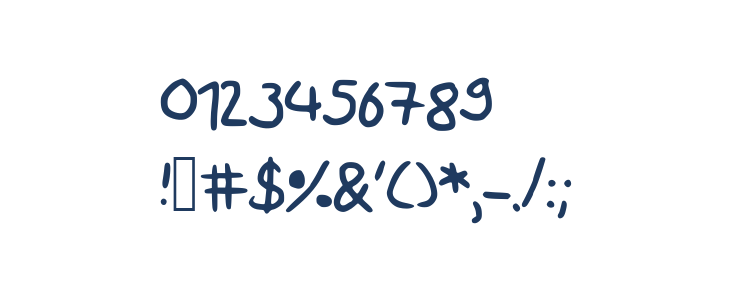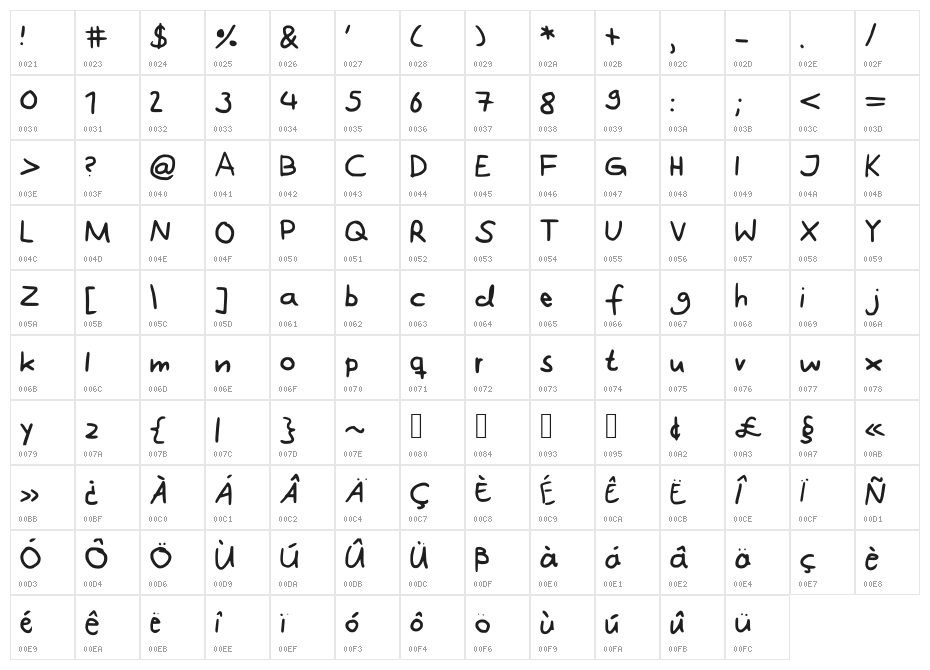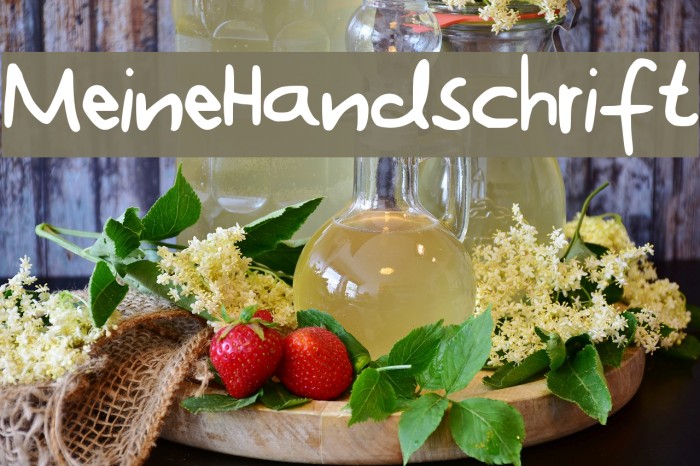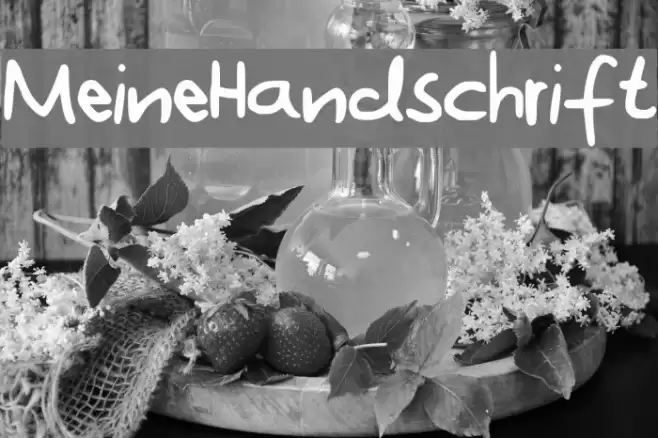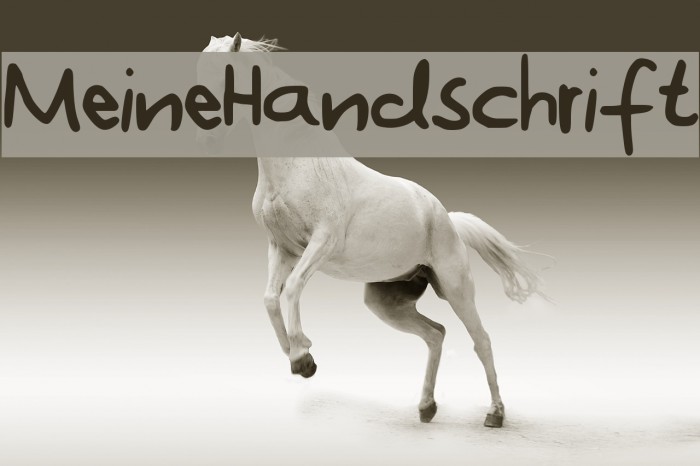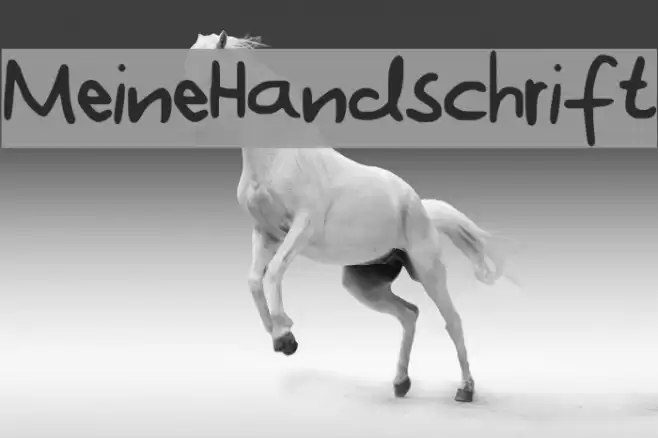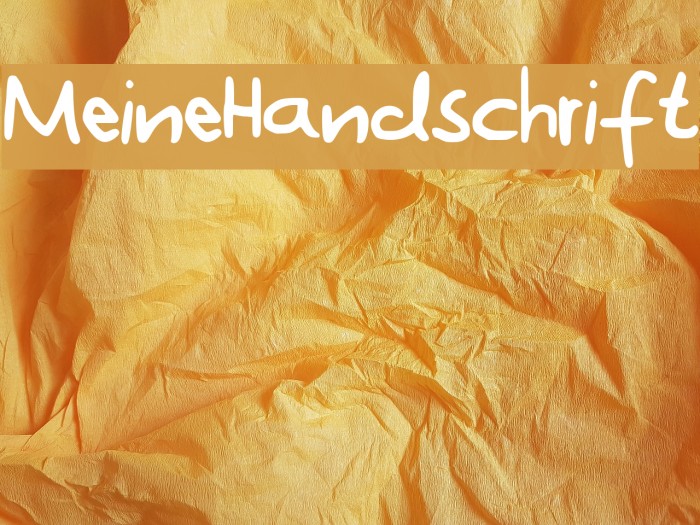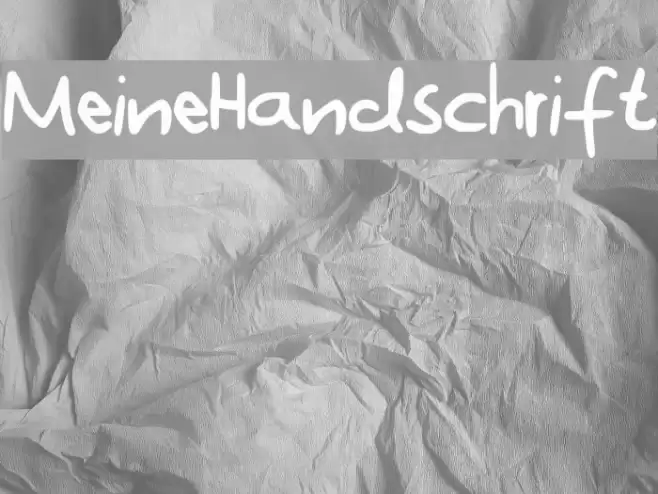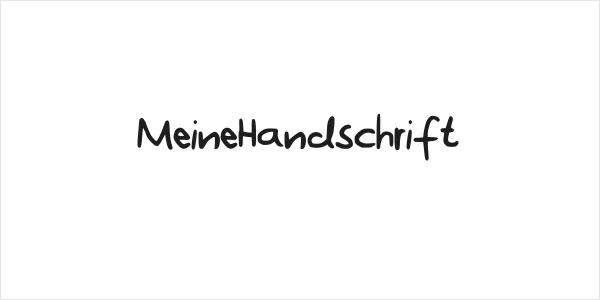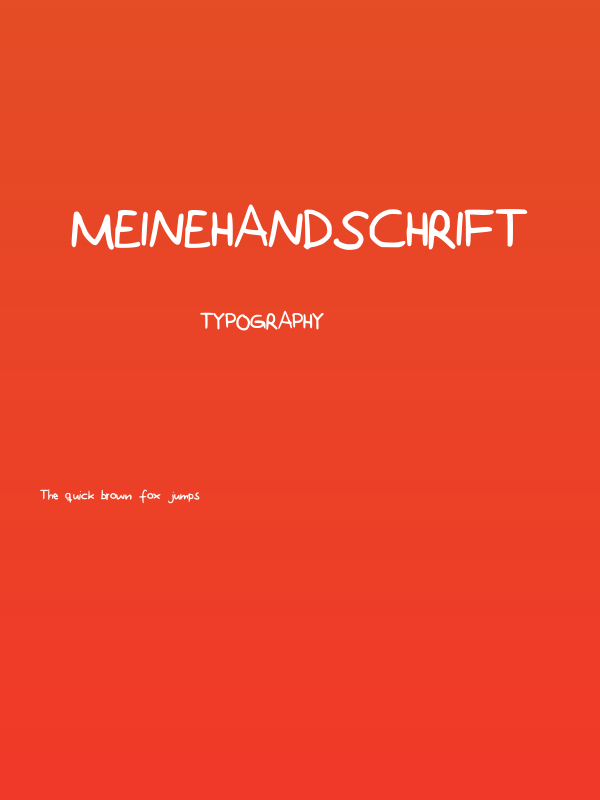
MeineHandschrift Font
MeineHandschrift Description
This font features a playful, handwritten style with a casual and friendly appearance. The letters are slightly irregular, mimicking natural handwriting, which adds a personal touch to any text. The strokes are smooth and rounded, giving it a soft and approachable feel. The uppercase and lowercase letters are well-balanced, maintaining a consistent flow throughout. Numbers and special characters are included, matching the overall style and ensuring versatility in use.
| Use Case | Headlines, Informal text, Personal projects |
| Proposed Projects | Ideal for personal notes, invitations, greeting cards, and informal branding projects. |